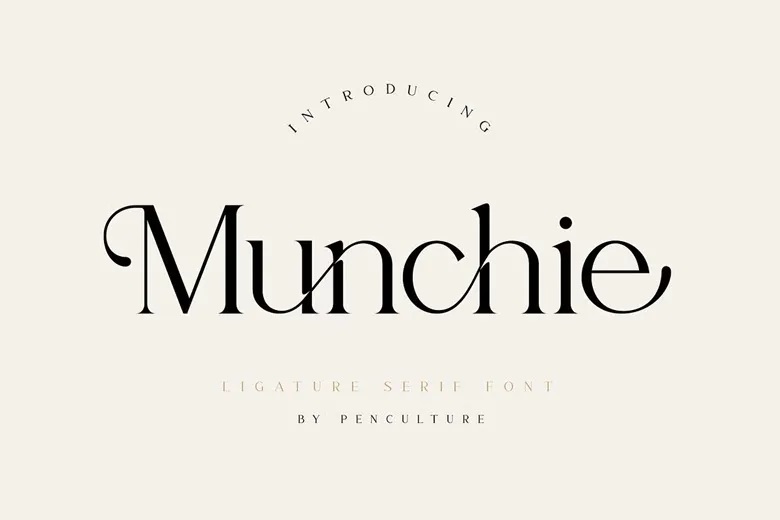
Munchie Font
Munchie is an elegant serif typeface with quite a lot of awesome and unique ligatures. And this font is not only that, but it also consists of beautiful alternate very convenient and can be used for the numerous designs projects. This font can be applied used on projects such as branding, logo, poster, social media, web design among other designs.
Munchie Serif Font